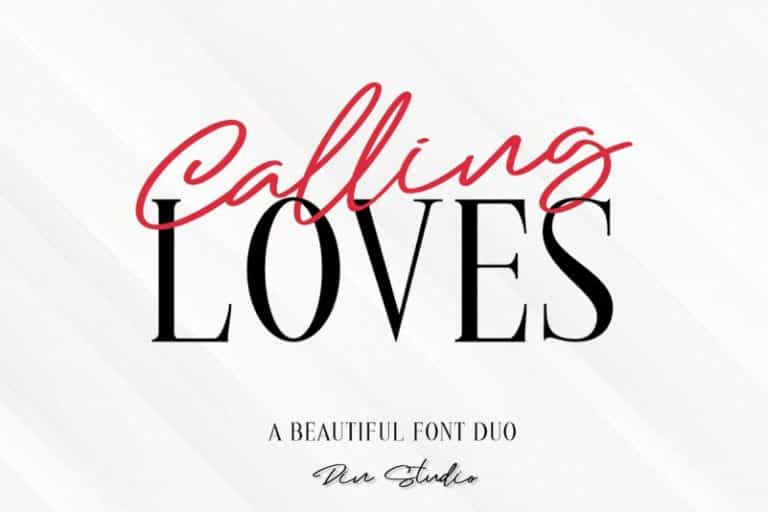
Discover Calling Loves Font Duo, part of the Handwritten Serif collection—a versatile and unique font perfect for adding a personal touch to your projects. Download it for free and enjoy crafting designs with style, from invitations to social media posts. This font is available exclusively for personal use, giving you the freedom to create without limits. Unlock your creativity with Calling Loves Font Duo today!
Introducing Calling Loves. It is developed and distributed by Din Studio. Introduce to you Calling Loves, which is a font duo that has been created with modern style. The combination of script and modern serif will make your design not only beautiful, but also more attractive. It is perfect for branding, web design, personal signature (logo) and many more modern designs.